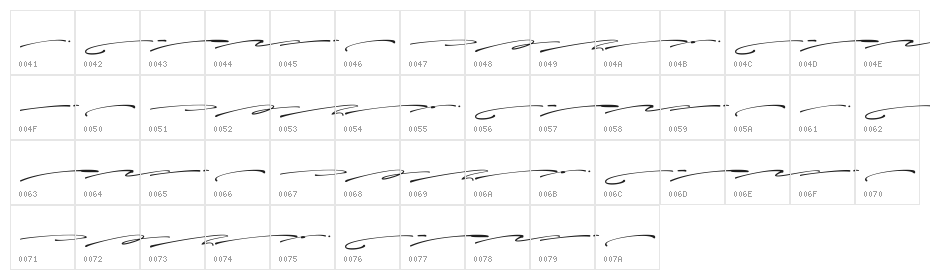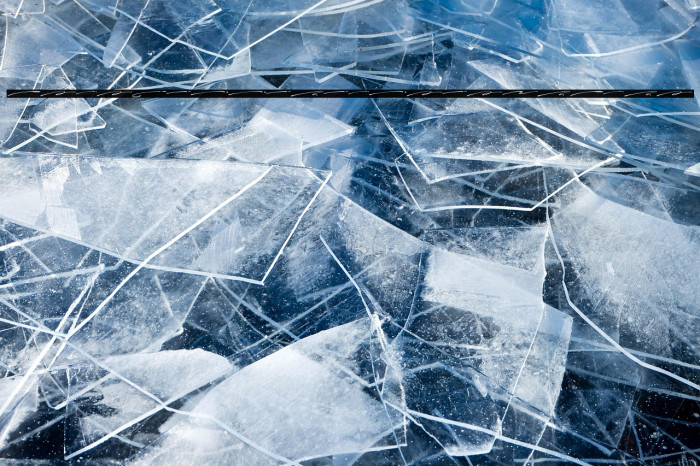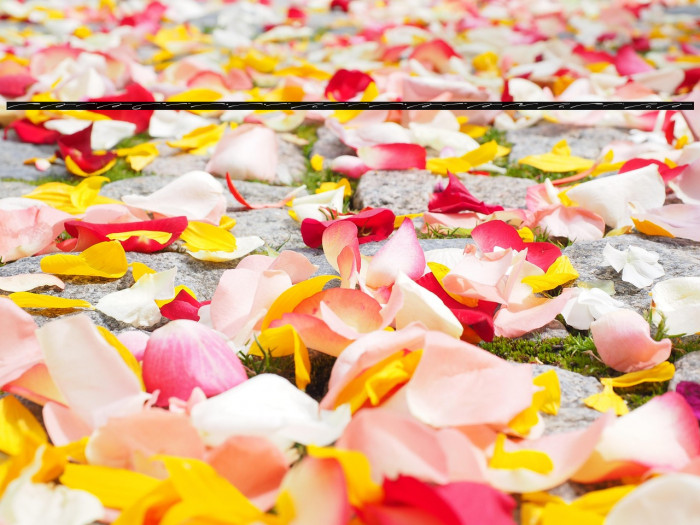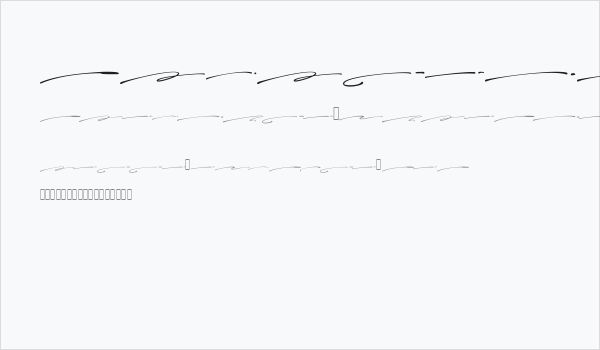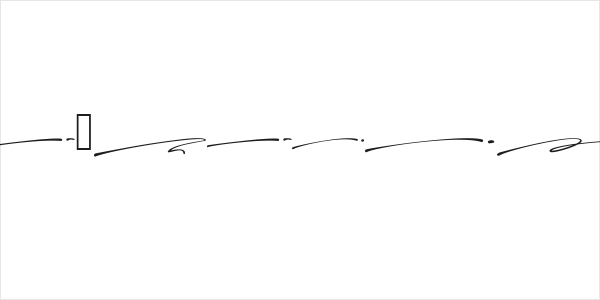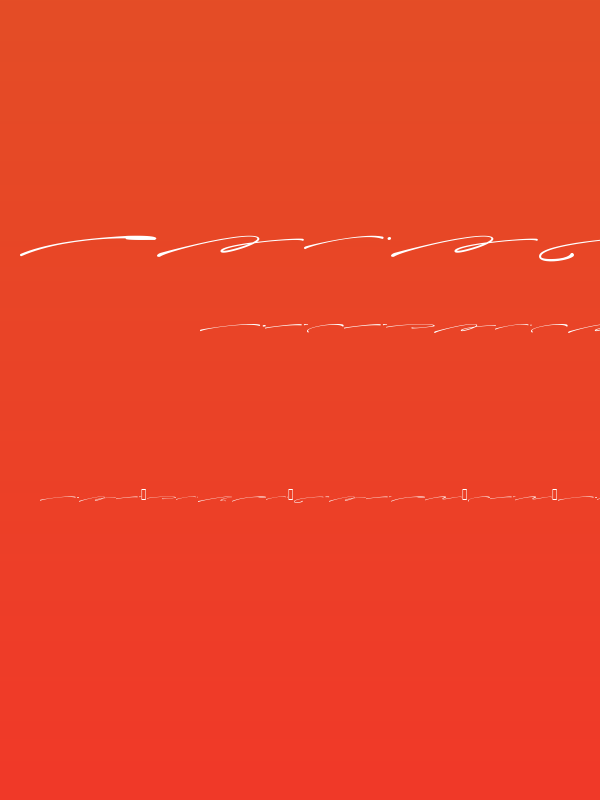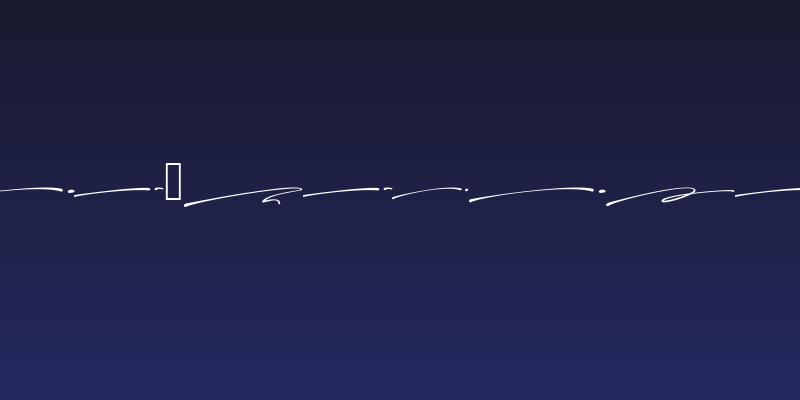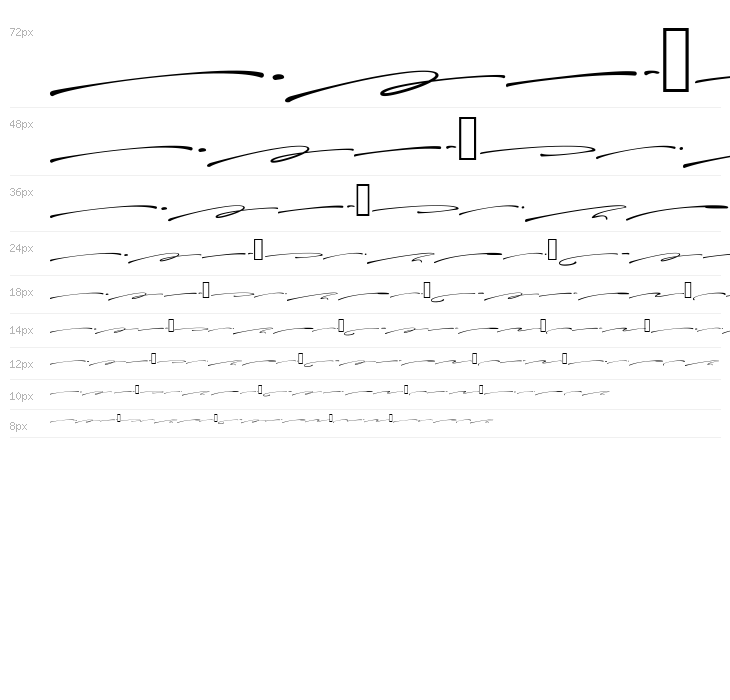
Charlotte Southern Swash Font
Charlotte Southern Swash Description
This font exudes elegance with its flowing, cursive script style. Each letter is intricately designed with smooth, sweeping strokes that create a sense of movement and grace. The characters are connected, enhancing the fluidity and continuity of the text. The delicate lines and subtle curves give it a refined and sophisticated appearance, making it ideal for projects that require a touch of class and elegance. The font's design is reminiscent of traditional calligraphy, yet it maintains a modern flair that makes it versatile for contemporary use.